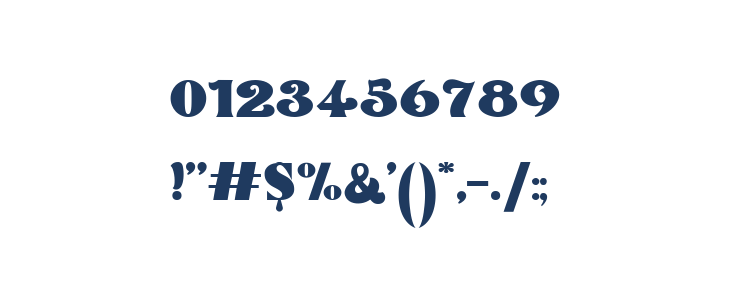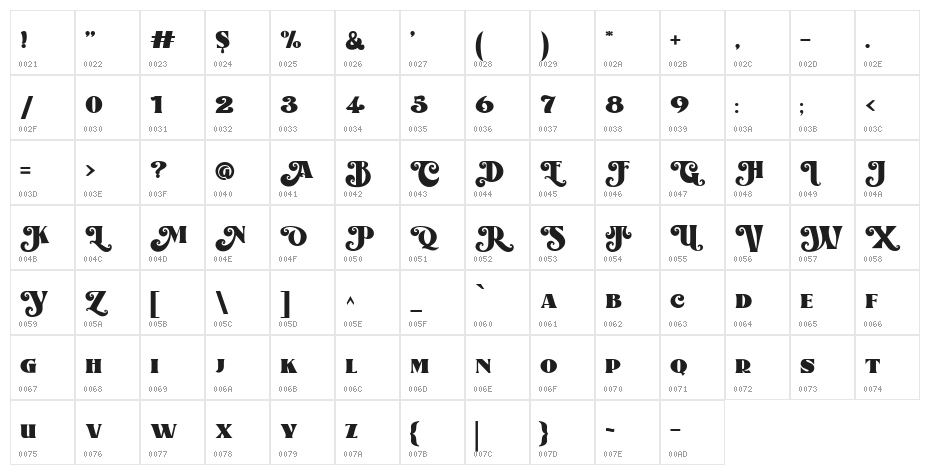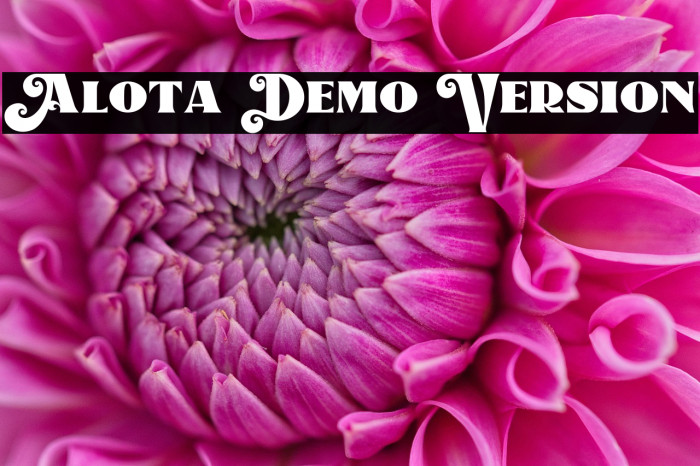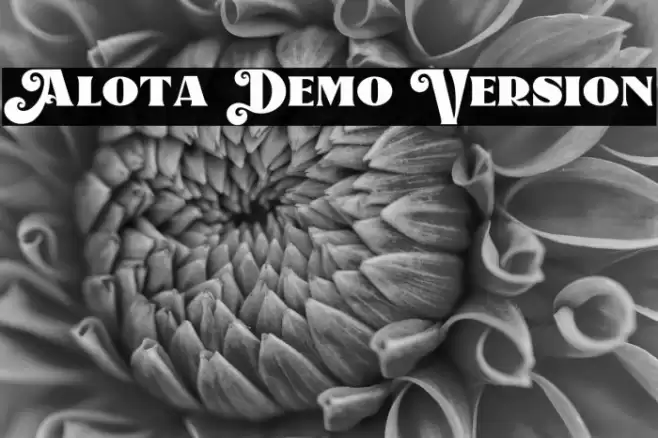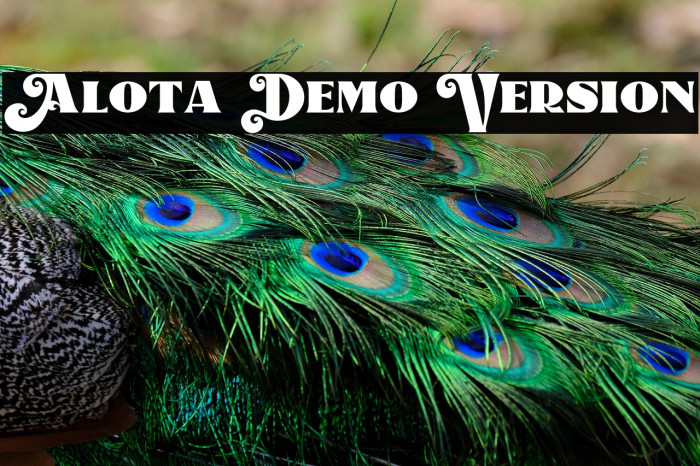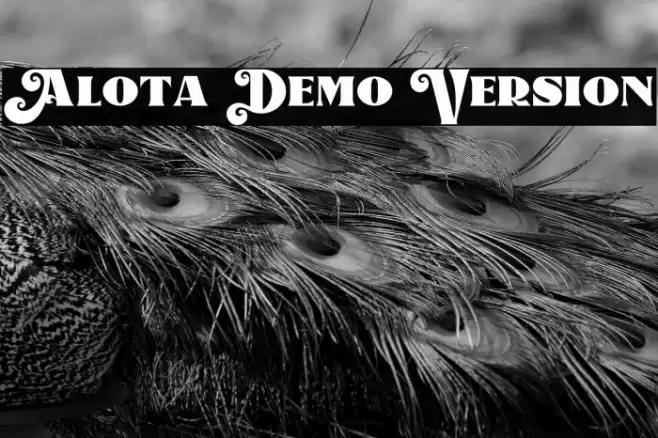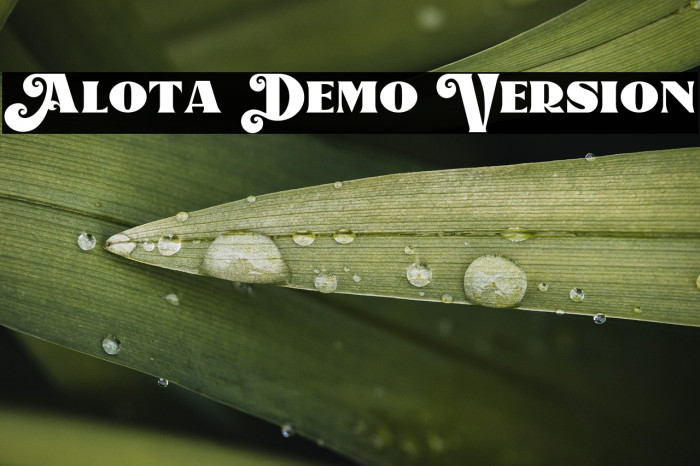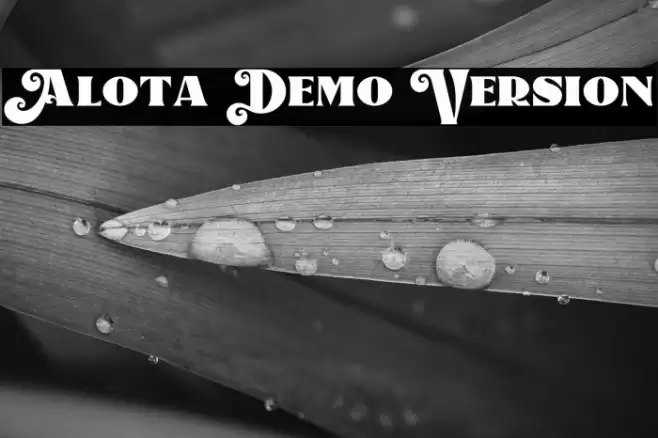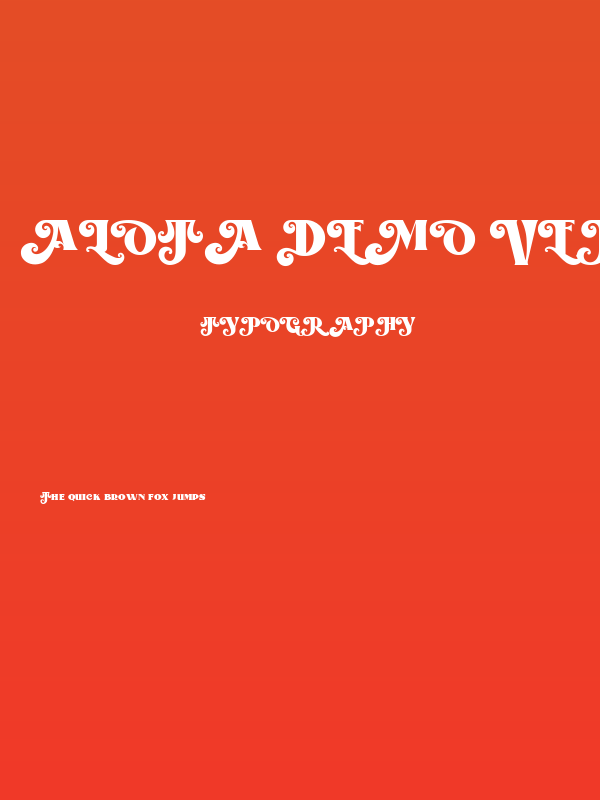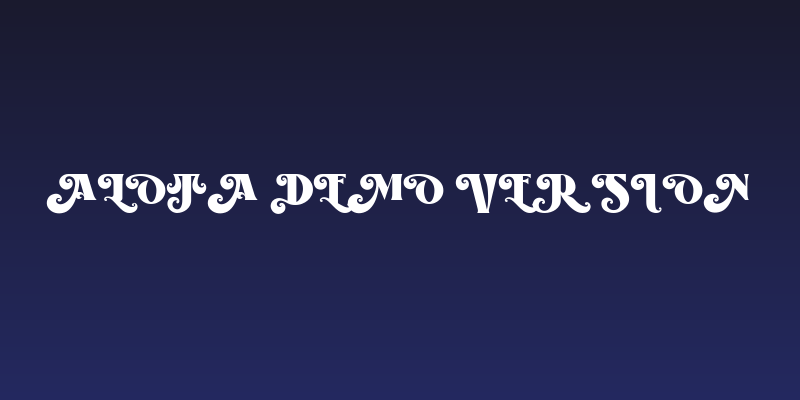
Alota Demo Version Font
Alota Demo Version Description
This font features a bold and decorative style with intricate swirls and flourishes that add a unique flair to each character. The uppercase letters are particularly ornate, with elaborate curls and loops that give the font a whimsical and playful appearance. The lowercase letters maintain a similar decorative theme, ensuring consistency throughout the typeface. The numbers and special characters are equally stylized, making this font ideal for creative and artistic projects. Its bold weight and high contrast in stroke thickness make it stand out, while the character spacing is relatively normal, allowing for readability despite its decorative nature.
| Proposed Projects | Ideal for use in branding, posters, invitations, and any project requiring a whimsical and artistic touch. |